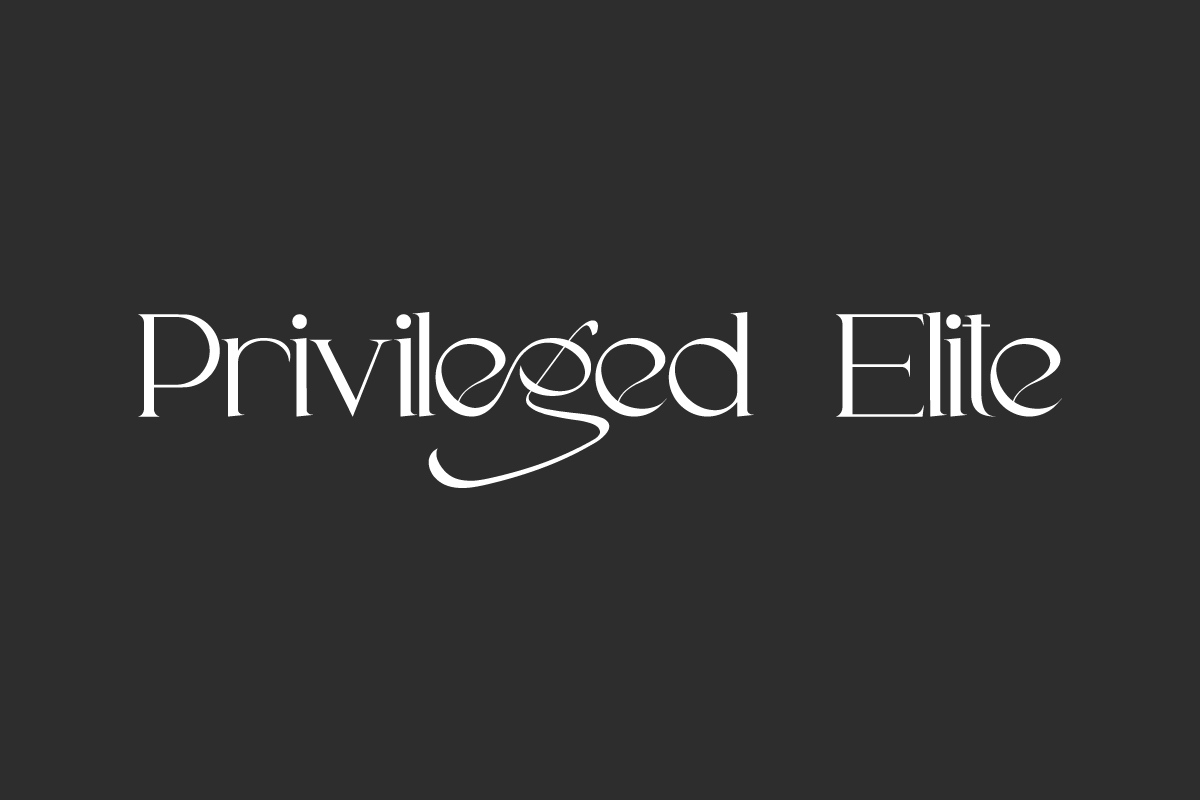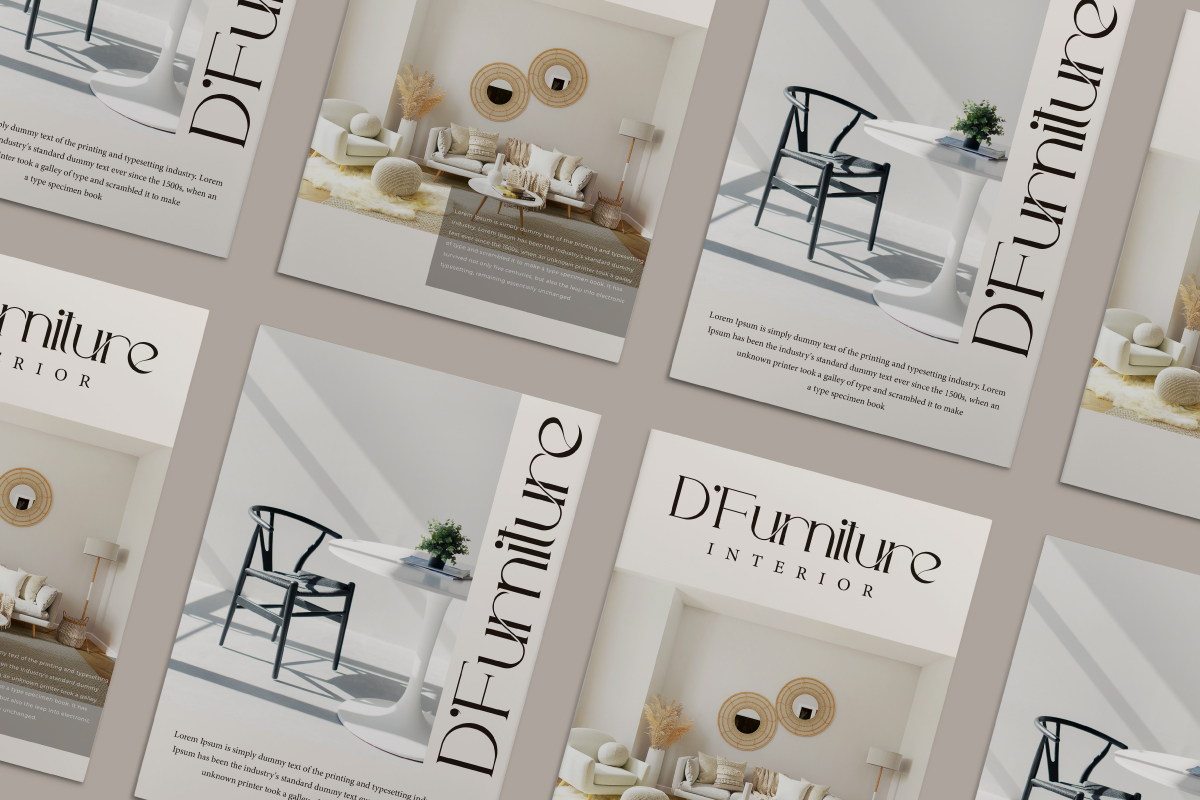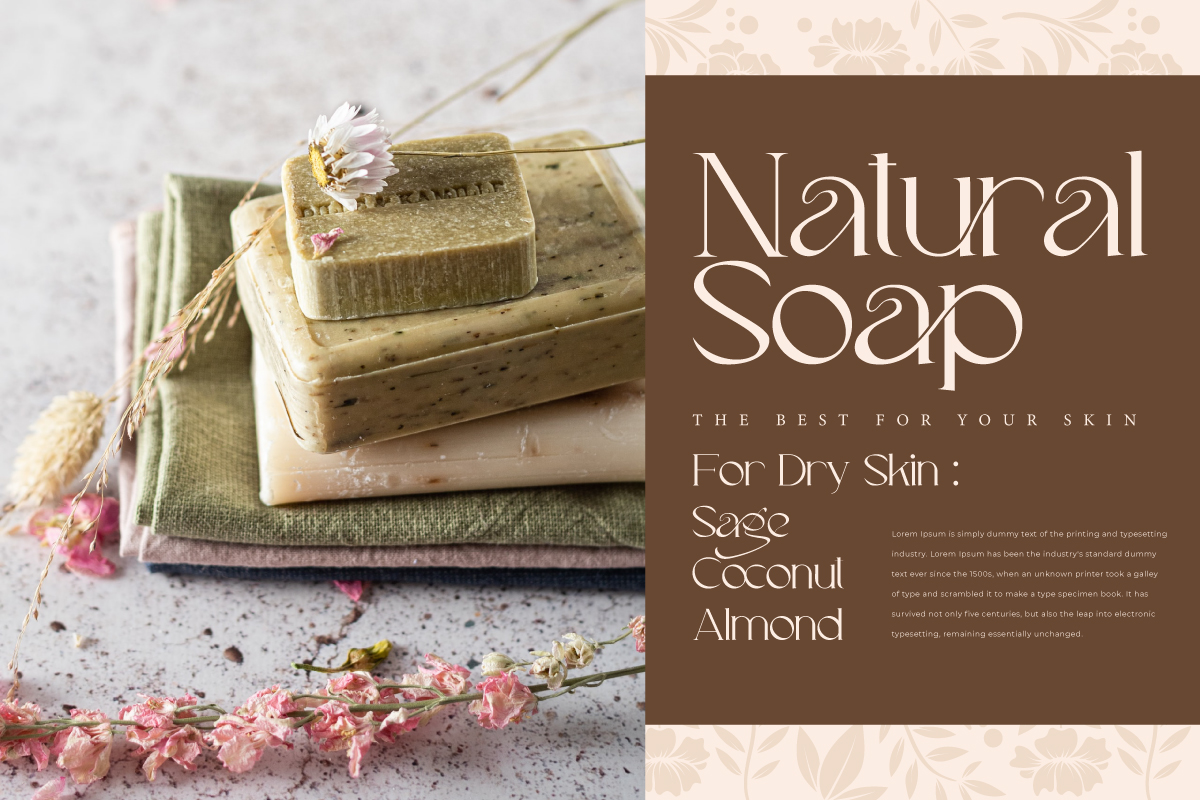
Privileged Elite Font
Privileged Elite Serif Font is an elegant serif display font. The characters in this font will give ultimate luxury to any design you create. It will be suitable for many industries, such as fashion, beauty product, perfume, wedding organizer, spa and salon, home furnishing, florist, publishing, printing, and more!
Privileged Elite Font includes full set of Uppercase Basic Characters, Numerals and Punctuation, and Ligature. Don’t forget to use this font to complement your design to make it more stunning, such as business card, brand logo, label, catalog, poster, product packaging, web page, quote, etc.